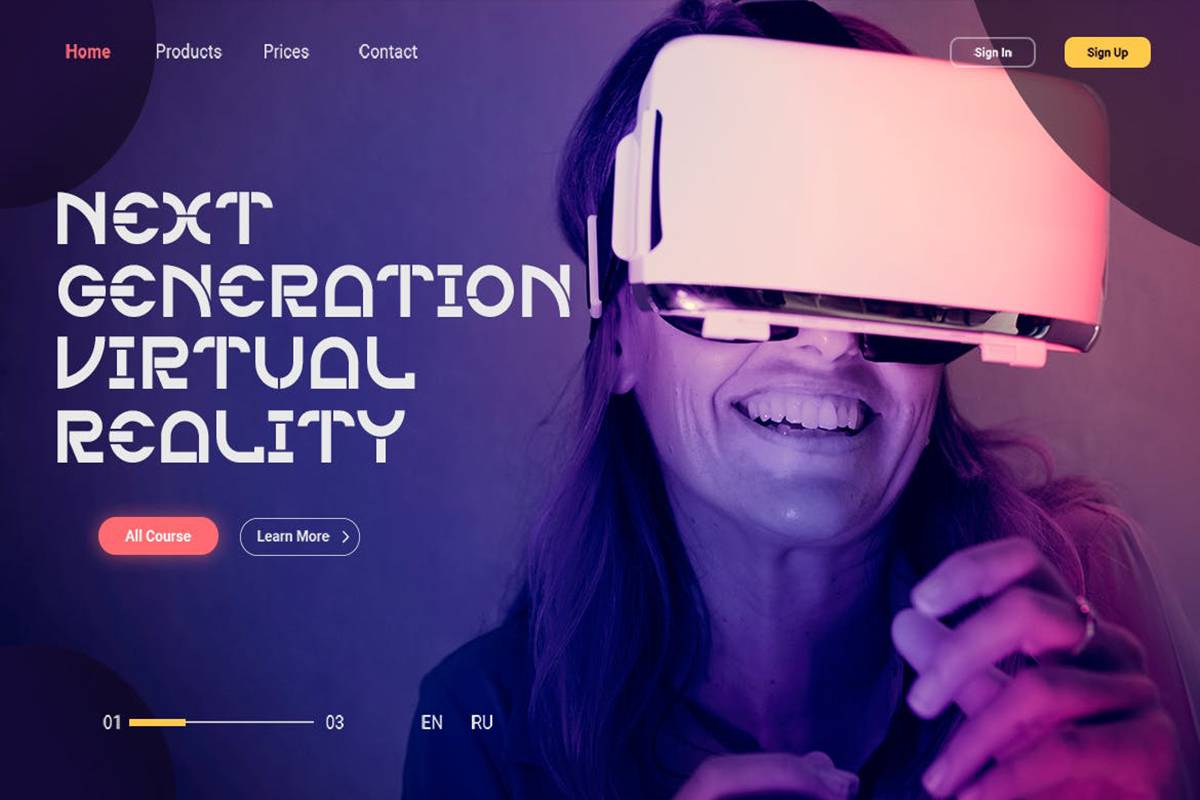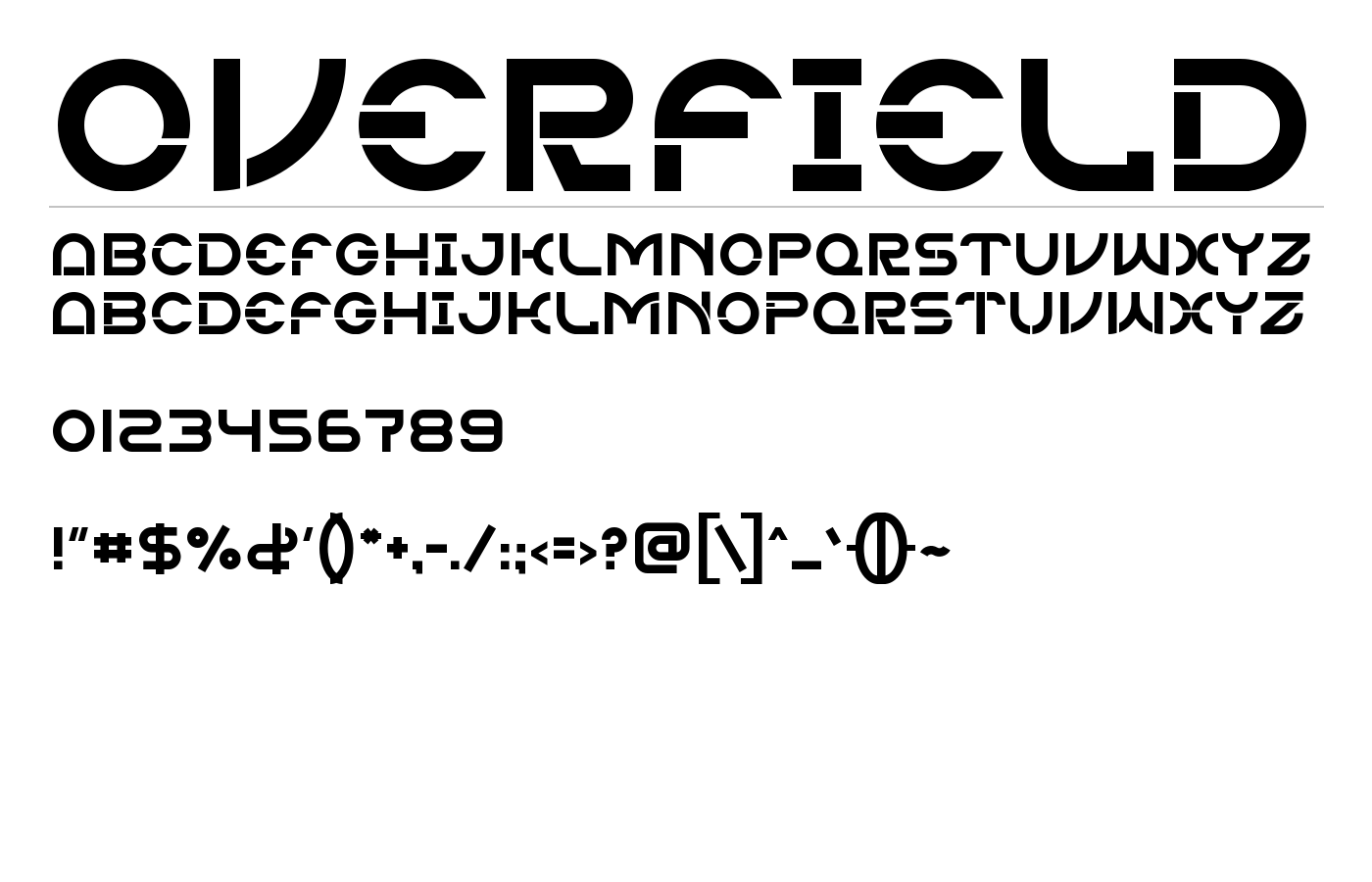
Overfield is a bold, geometric sans-serif font with a modern, futuristic feel, characterized by its striking horizontal bars that interrupt the letterforms. Its wide, sharp strokes and unique letter cuts create a distinctive, tech-inspired style perfect for eye-catching headlines, logos, and branding that aims to convey innovation and forward-thinking design. This font works best in creative and digital contexts where a bold and contemporary look is desired.
Overfield Font
About Overfield Font